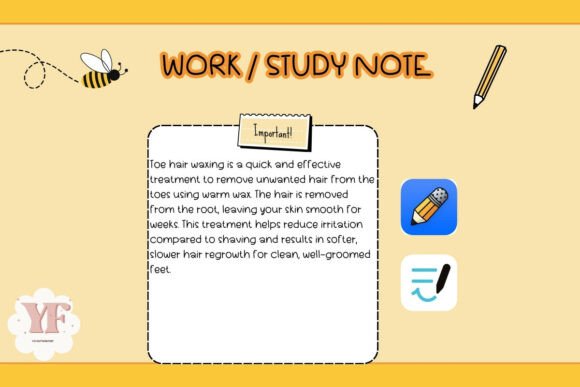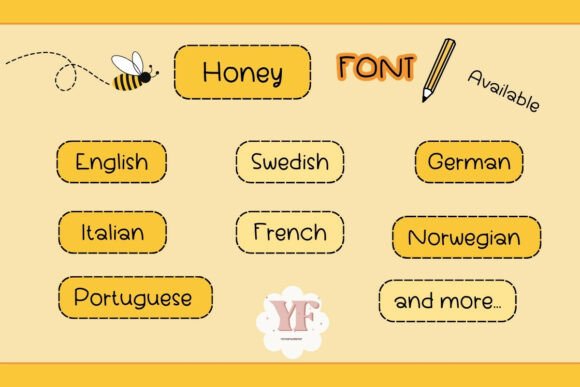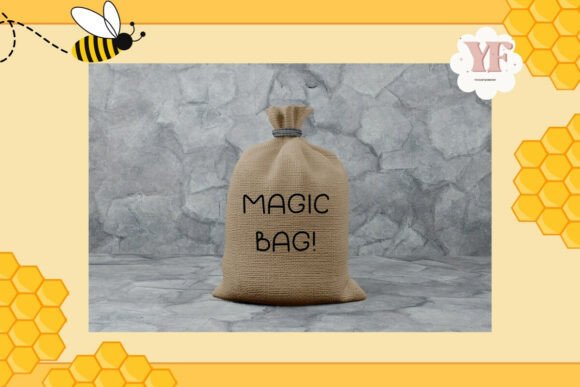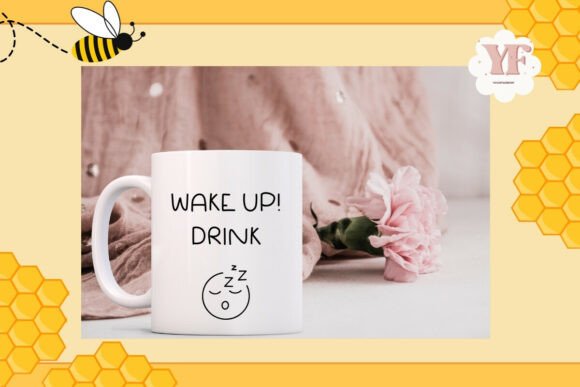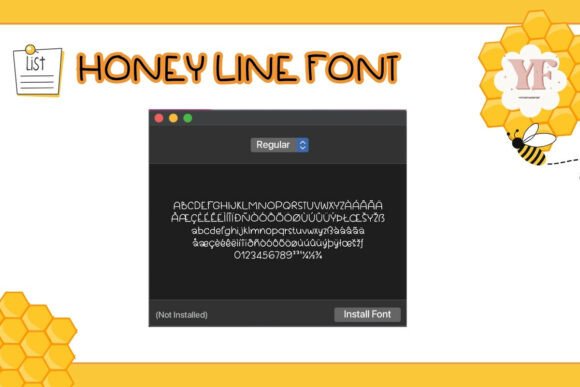
The Perfect Blend of Warmth and Readability: Honeyline Font
Who hasn’t scribbled down a to-do list in their favorite notebook, or doodled in the margins of a textbook? For many of us, the act of writing is a sensory experience that evokes feelings of creativity and connection. And that’s exactly what the Honeyline Font is designed to capture – the warmth and personality of handwritten notes and memories.
This soft, playful handwriting font is perfect for planners, journals, digital notes, and classroom projects. Its rounded shapes and smooth lines reflect the charm of student notebooks and everyday writing moments, creating a cozy and approachable visual style. With its handmade look and clear, easy-to-read text, the Honeyline Font adds personality to any layout while keeping the focus on the message.
Honeyline Font Key Features
- Font Family: Honeyline is a sans-serif font family designed for modern and clean typography. It includes 6 weights (Hairline, Light, Regular, Medium, Bold, Black) and italics for each weight.
- Character Set: Honeyline Font includes a comprehensive character set, covering Latin, Cyrillic, and Greek alphabets, as well as a range of punctuation and symbol characters.
- Size and Resolution: Honeyline Font is designed to be highly scalable, making it suitable for use at a wide range of font sizes and resolutions, from small mobile screens to large print materials.
- Unique Characteristics: Honeyline Font features a unique blend of modern and classic elements, with clean lines, rounded edges, and a subtle x-height that creates a friendly and approachable feel.
Honeyline Font Review
First off, I have to say that the Honeyline Font has some great qualities that make it a solid choice for designers. ✨ The font is modern, clean, and versatile, making it perfect for a wide range of projects from logos to digital interfaces. The bold and thin weights add a nice touch, allowing for a lot of creative freedom. ✨ The font also comes with a lot of language support, making it a great option for global brands.
- Modern and clean design
- Highly versatile and suitable for various projects
- Bold and thin weights for added creativity
- Extensive language support
However, I do have to mention a few limitations that might be a concern for some designers. ⚠️ The font is not as customizable as some other options, which might be a drawback for those who like to fine-tune their fonts. Additionally, the font’s readability at small sizes could be improved. ⚠️ These are relatively minor issues, but they’re worth considering.
I would say that the Honeyline Font is a solid choice for designers who want a modern, clean, and versatile font. While it may not be the most customizable option, its strengths far outweigh its limitations. With some tweaks to improve readability at small sizes, I think this font has the potential to be a top choice for designers.
Honeyline font is ideal for creating elegant and modern designs, such as:
– Branding materials, such as logos and business cards
– Digital products, such as ebooks and magazines
– Social media graphics and advertisements